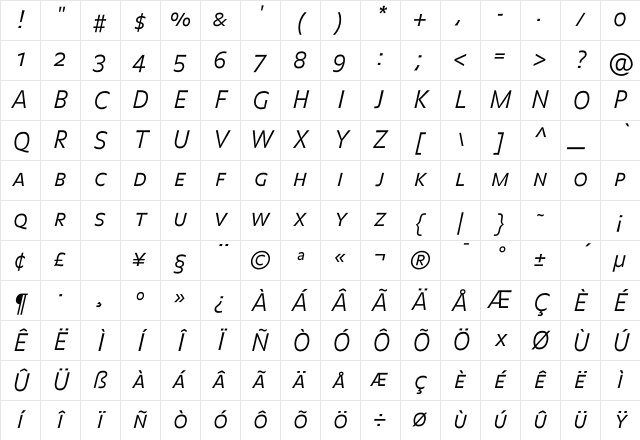
Balance LightCapsItalic
Balance Family
Design Context for Balance
Balance is a composed and adaptable typeface that performs quietly and consistently across a wide range of design contexts. The slanted form adds forward momentum and visual energy. Its slender proportions lend an understated elegance to any composition.
Pro Tip: Use Balance for emphasis, pull quotes, and subheadings where its slanted energy can add rhythm to the layout.